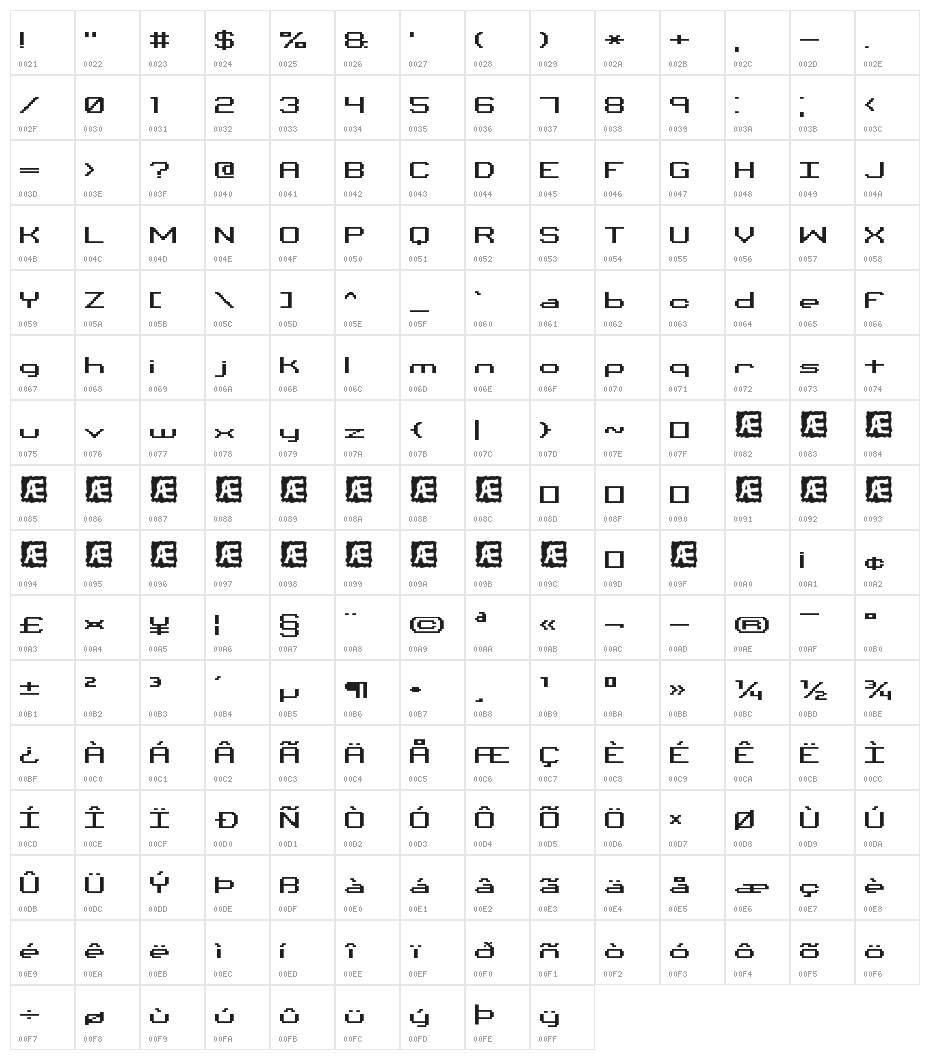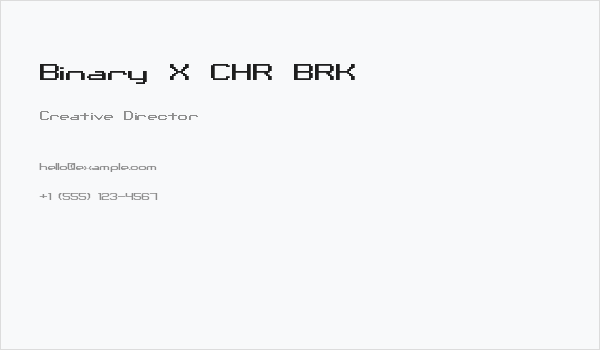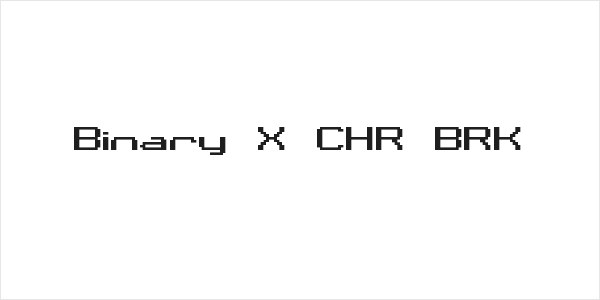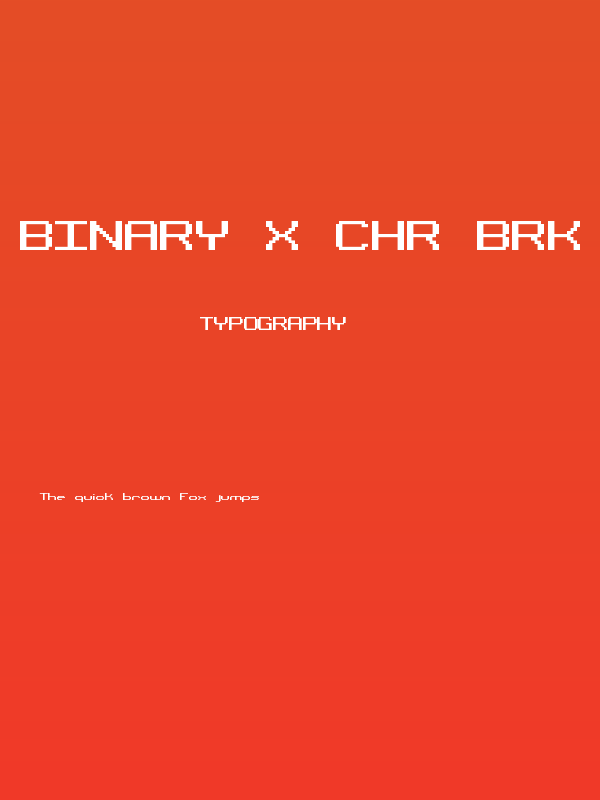
Binary X CHR BRK Font
Binary X CHR BRK Description
This font features a pixelated, blocky design reminiscent of early digital displays and retro video games. Each character is constructed with a grid-like precision, giving it a distinctly digital and technical appearance. The uppercase and lowercase letters maintain a consistent height, enhancing readability while preserving the font's unique style. Numbers and special characters are similarly designed, ensuring uniformity across all glyphs. The font's geometric structure and sharp edges make it ideal for projects that require a futuristic or tech-oriented aesthetic.
| Overall Style | Retro, Digital |
| Use Case | Headlines, Logos, Digital displays |
| Proposed Projects | Ideal for video game design, tech-themed posters, digital art, and retro-style branding. |